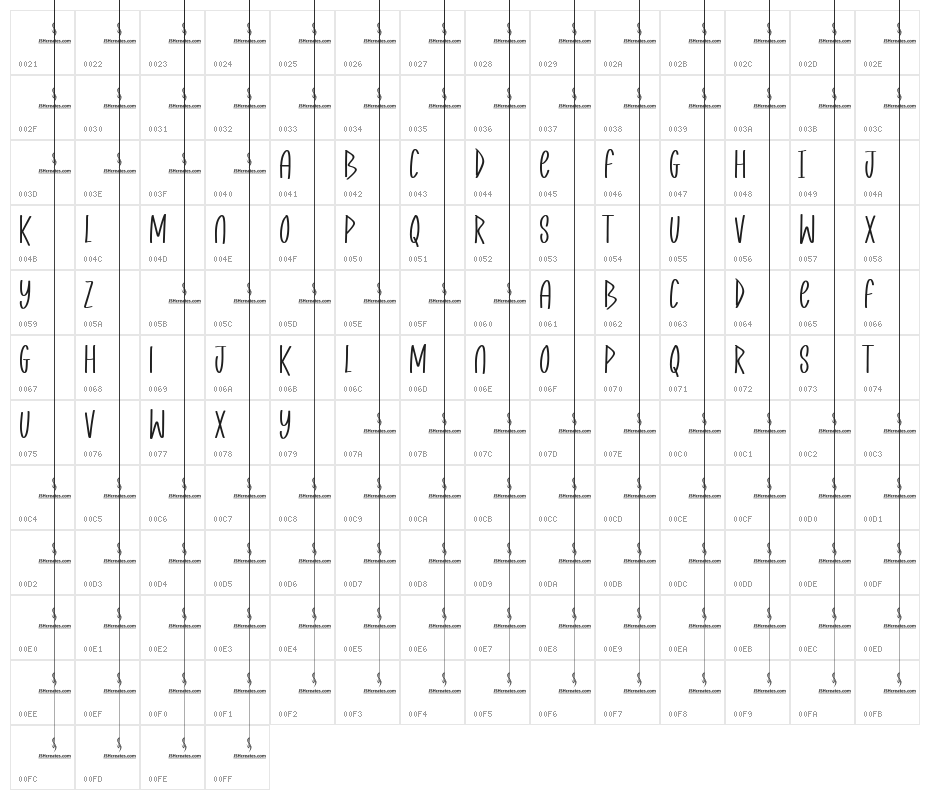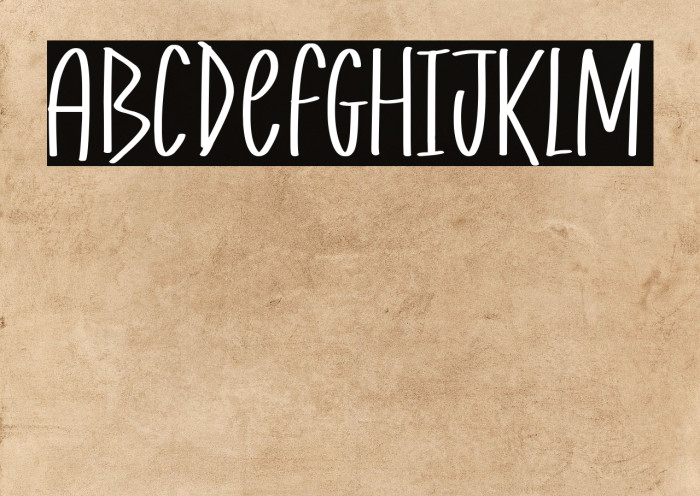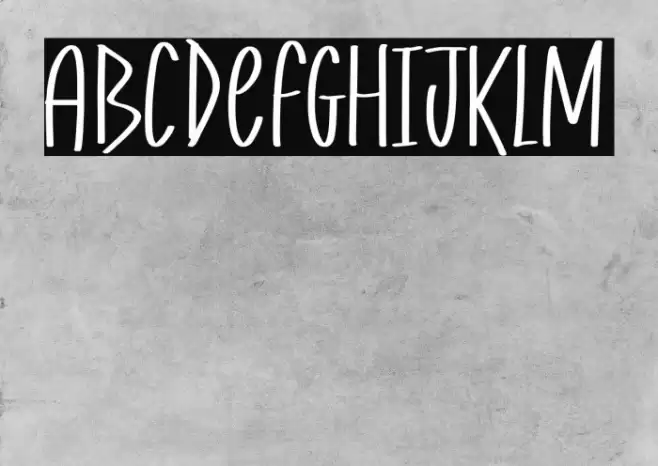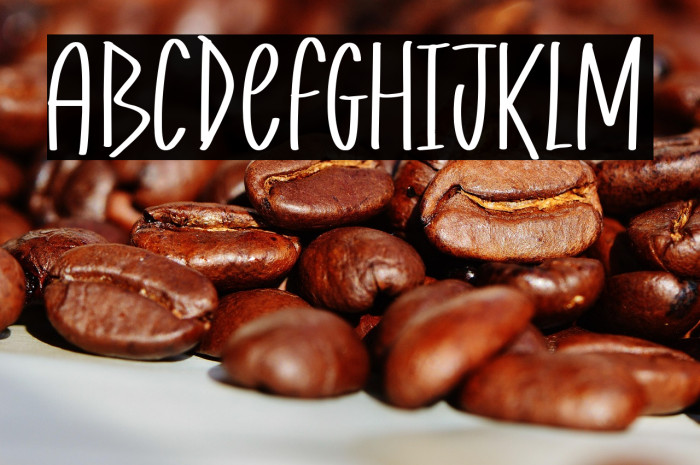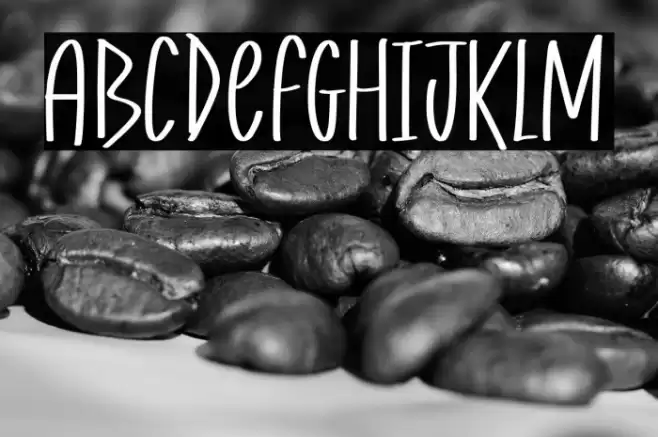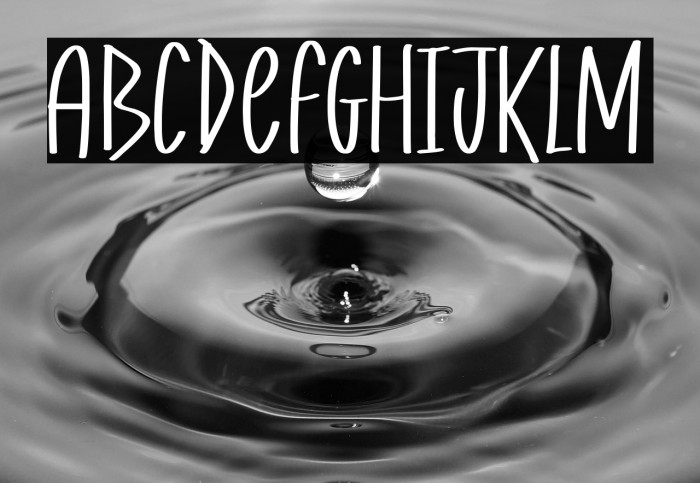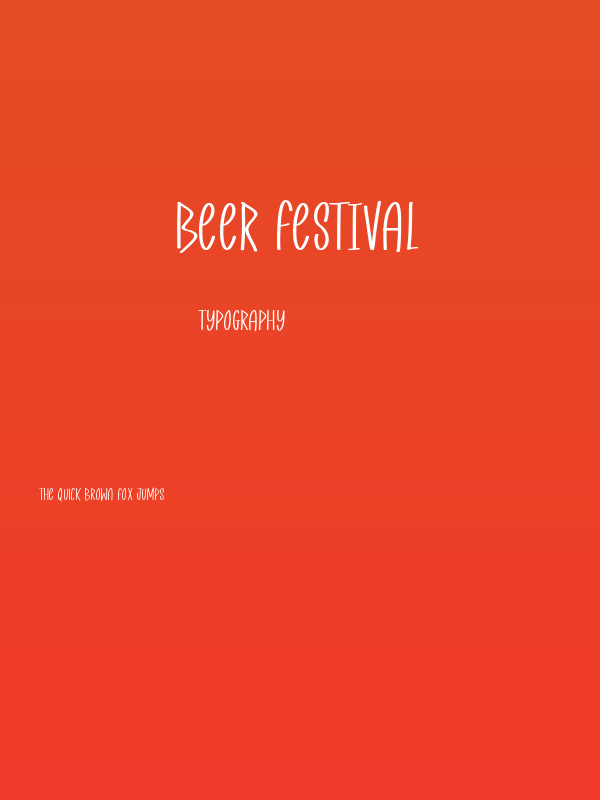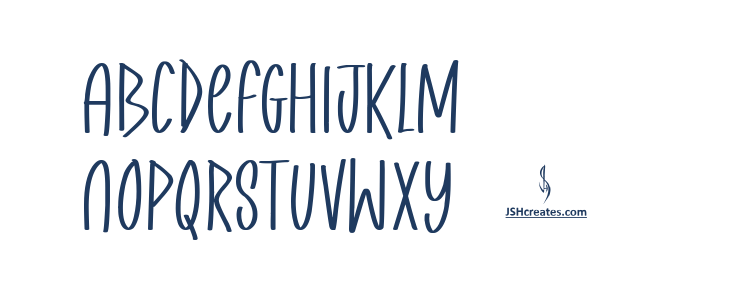
Beer Festival Font
Beer Festival Description
This font features a playful and energetic style, characterized by its tall, narrow letterforms and slightly irregular strokes. The uppercase letters have a whimsical flair, with some letters featuring unique curves and angles that add to its charm. The lowercase letters maintain a consistent style, complementing the uppercase with their own quirky details. The overall appearance is casual yet stylish, making it suitable for projects that require a fun and approachable aesthetic. The font's hand-drawn quality gives it a personal touch, ideal for creative and informal designs.
| Proposed Projects | Ideal for event posters, greeting cards, social media graphics, and branding projects that aim to convey a fun and lively atmosphere. |